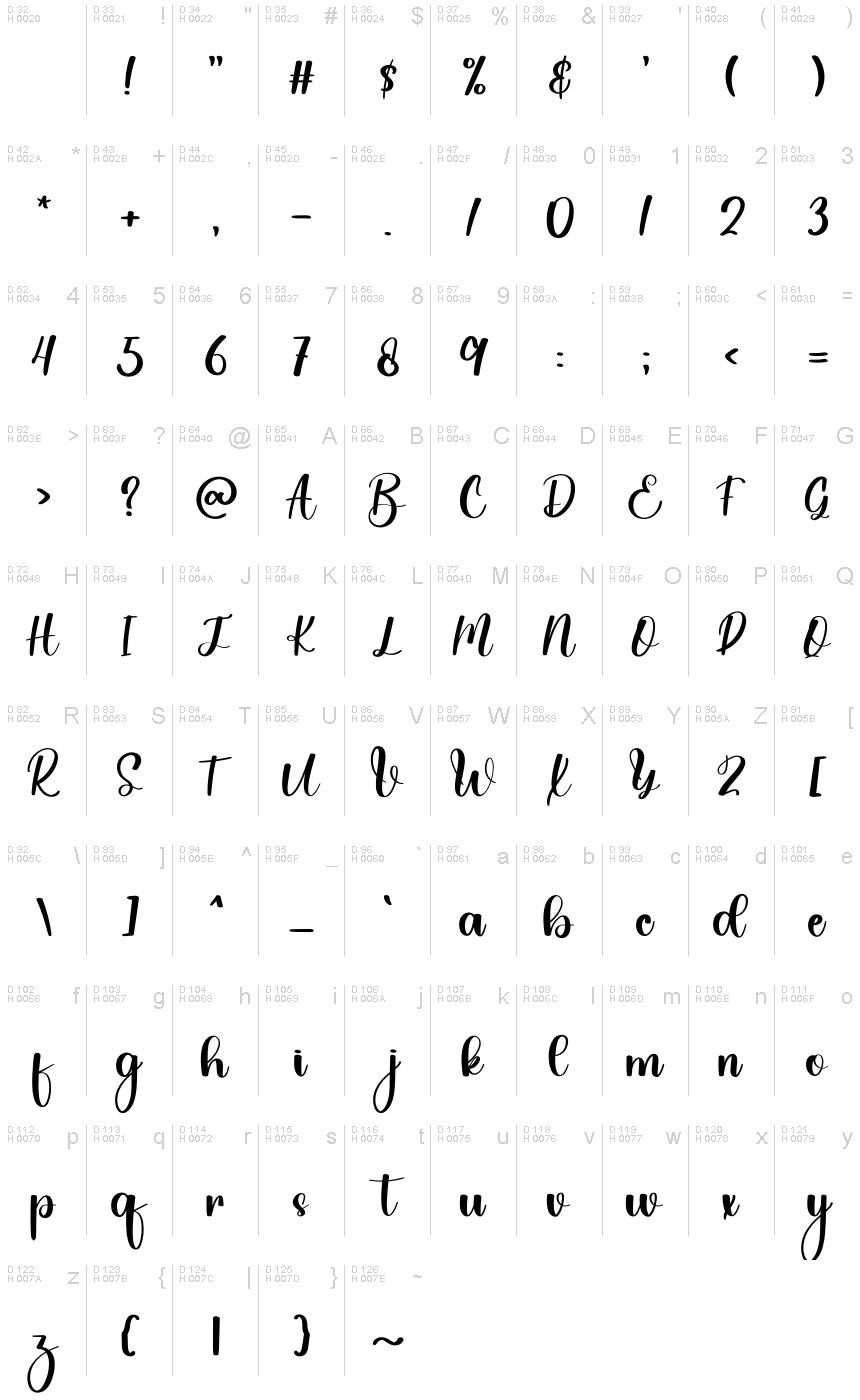
Vanilla
Vanilla, designed by PiPi Creative, embodies a handwritten style that exudes a personal and intimate touch. Its sweeping curves and fluid strokes evoke the charm of classic calligraphy, while maintaining a modern simplicity that feels approachable and friendly. This font's elegant yet casual demeanor makes it versatile for a range of applications—from heartfelt invitations to boutique branding or artisanal product packaging.
Vanilla's ability to infuse designs with warmth and character ensures it stands out as an alluring choice for those seeking to add a human touch to their visuals.